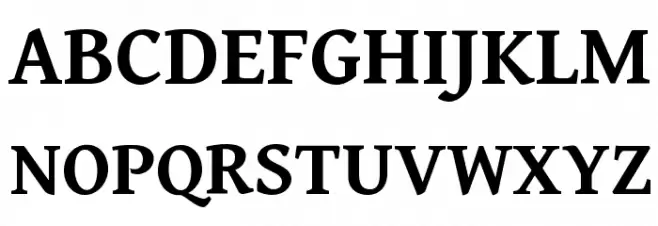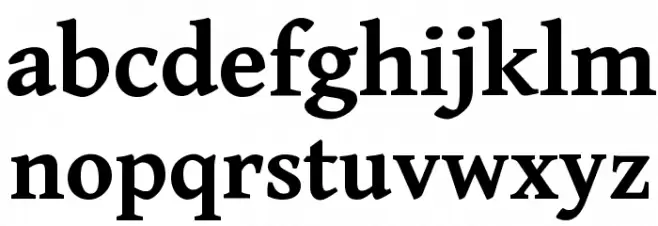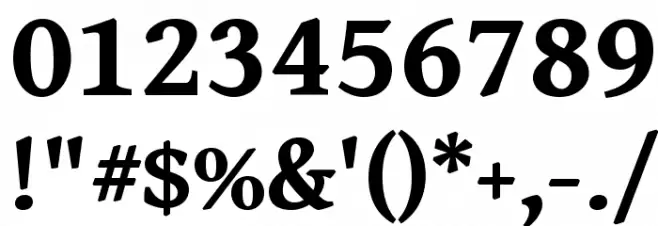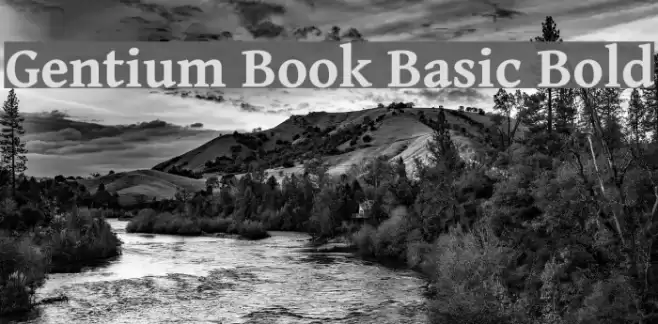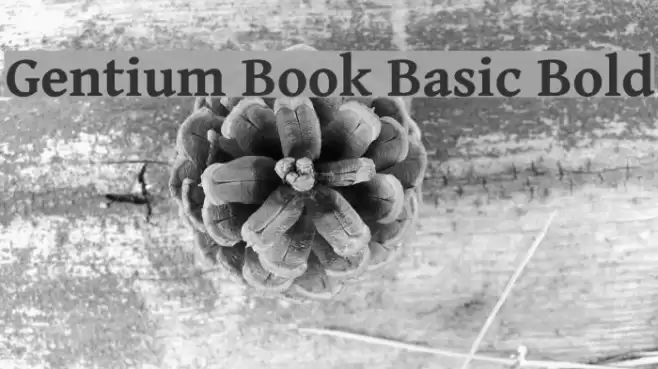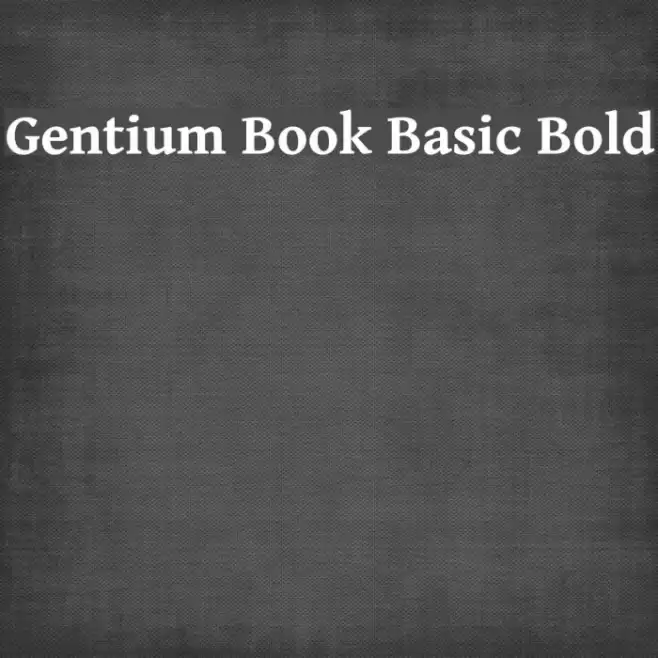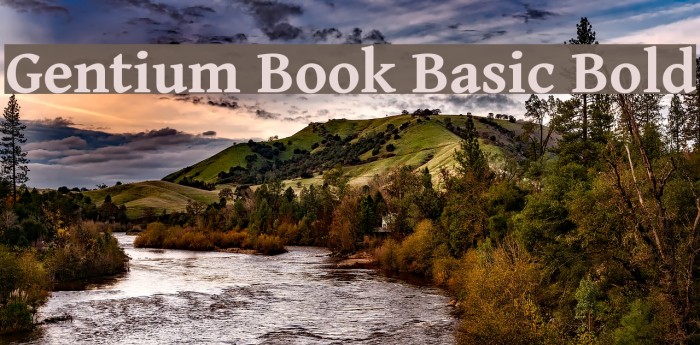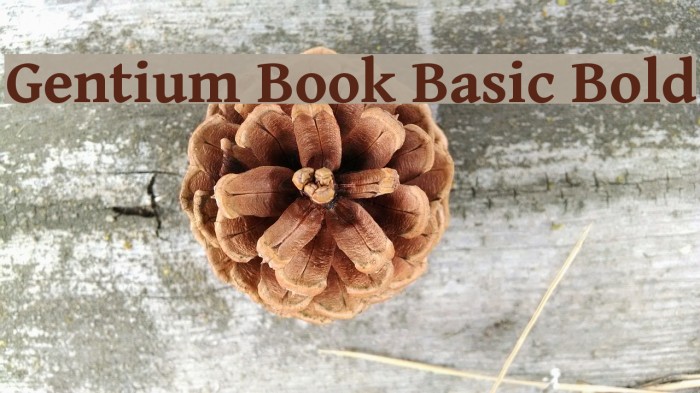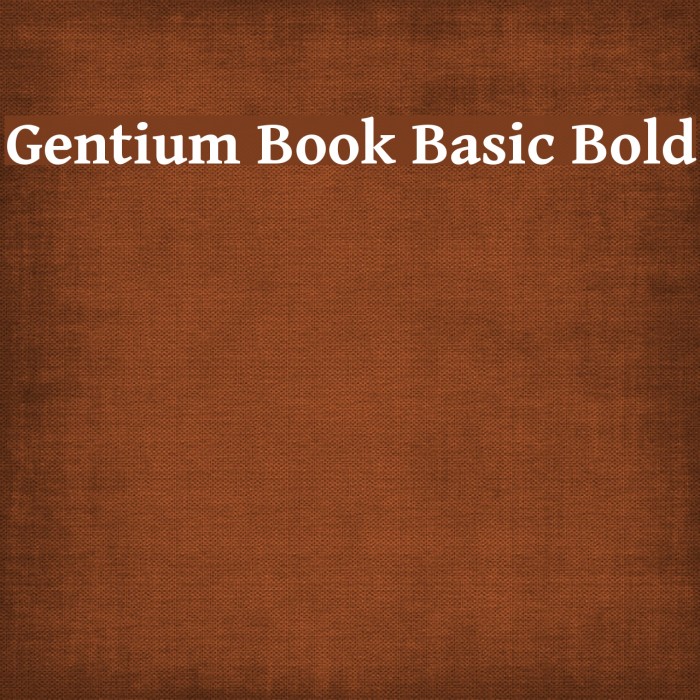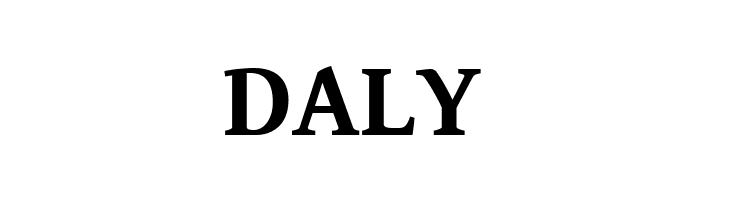
Gentium Book Basic Bold
This font features a classic serif design with a bold weight, offering a strong and authoritative presence. The characters are well-defined with moderate contrast between thick and thin strokes, providing a traditional yet readable appearance. The serifs are pronounced, enhancing the elegance and readability of the text. This font is versatile, suitable for both digital and print media, and can be used in a variety of contexts where a formal and professional look is desired.
A bold, classic serif font with moderate contrast and pronounced serifs.
- Proposed Projects: Ideal for book titles, formal invitations, editorial design, and branding materials.
- Category: Serif
- Overall Style: Classic